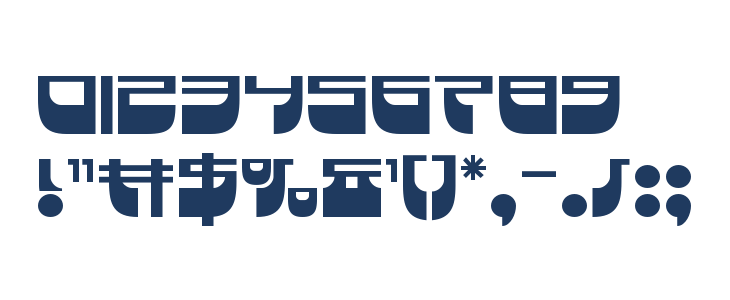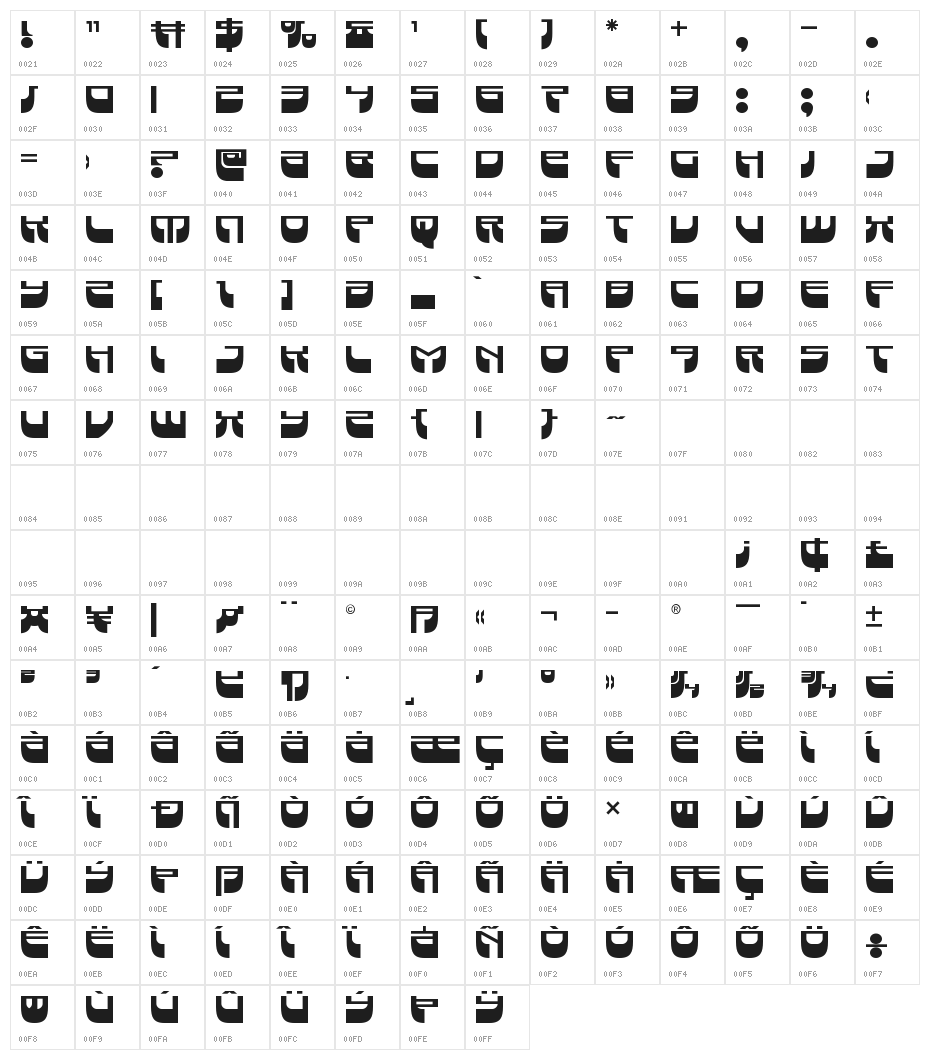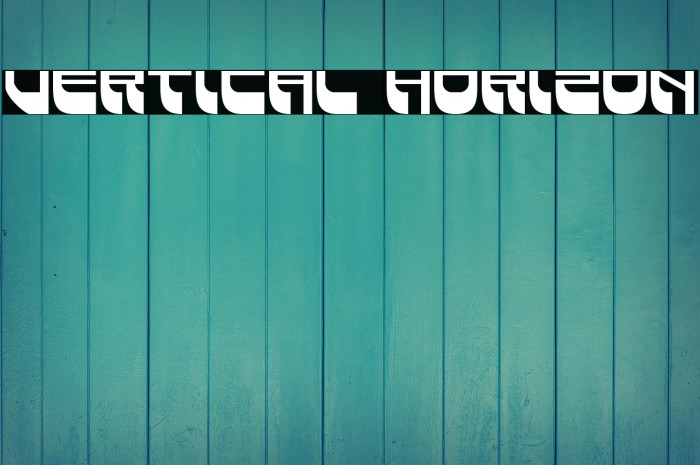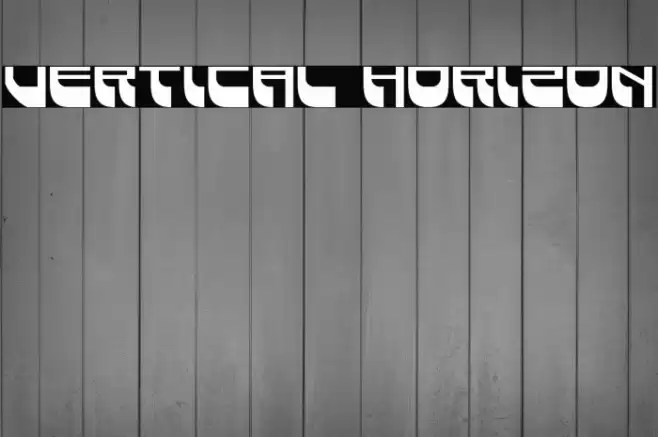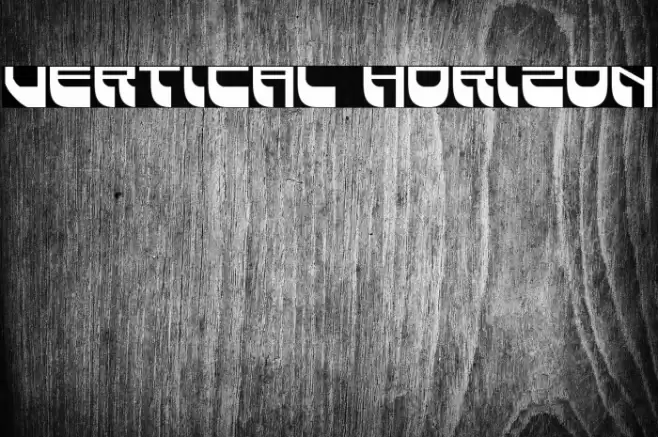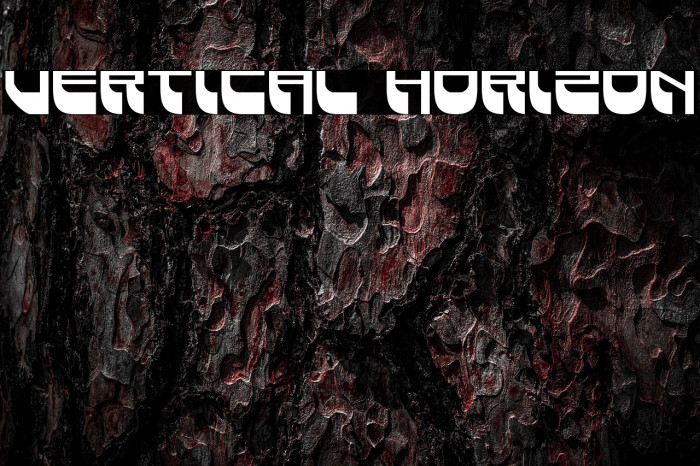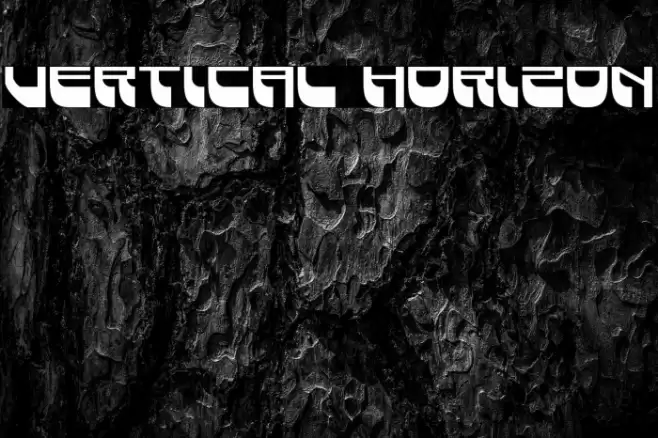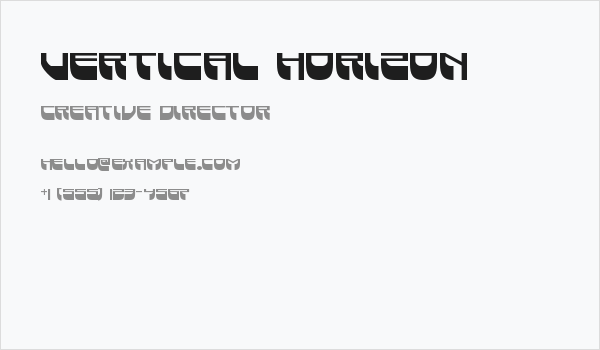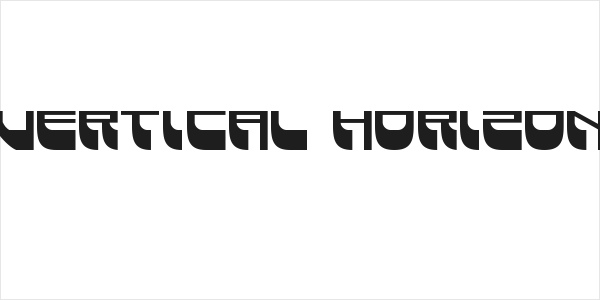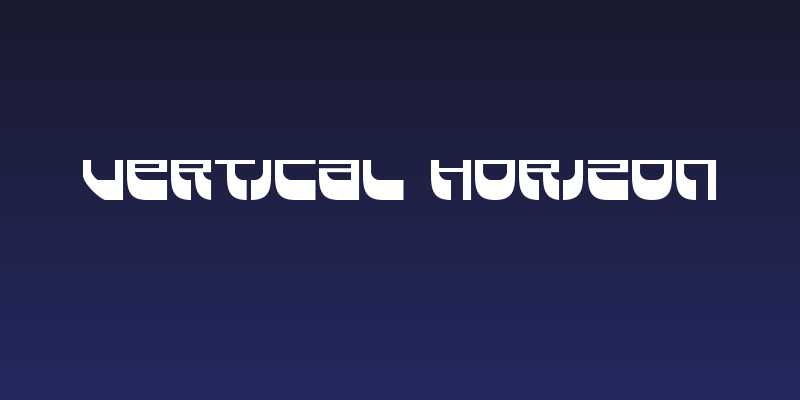
Vertical Horizon Font
Vertical Horizon Description
This font features a futuristic and bold design with a distinct geometric style. The characters are constructed with thick, block-like structures, giving them a strong presence. The use of sharp angles and curves creates a dynamic and modern appearance. Each letter is uniquely stylized, with some incorporating cutouts or negative spaces that add to the overall aesthetic. The font maintains a consistent weight throughout, ensuring uniformity across all characters. Its boldness and distinctiveness make it suitable for attention-grabbing designs.